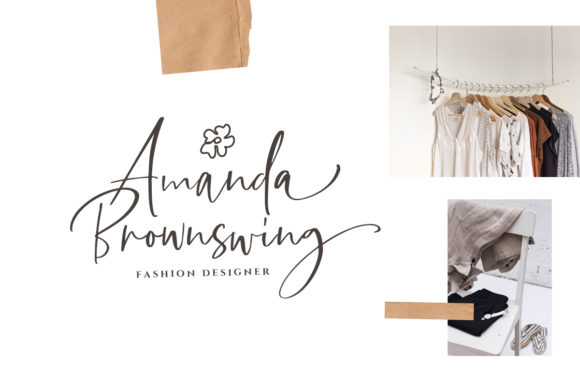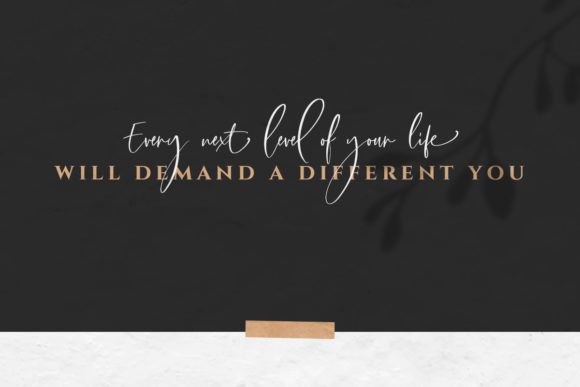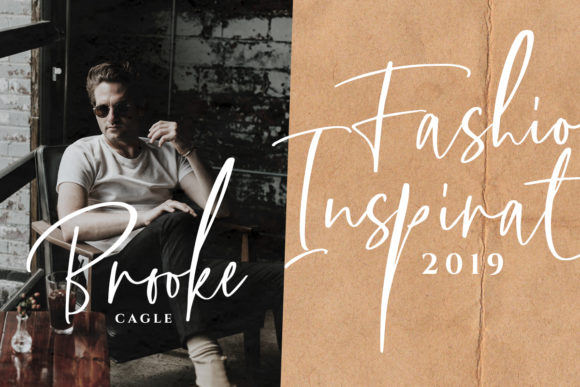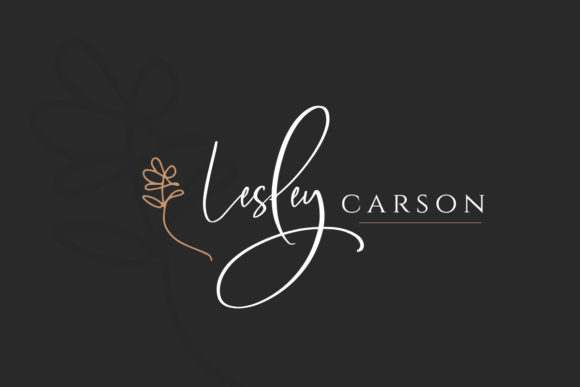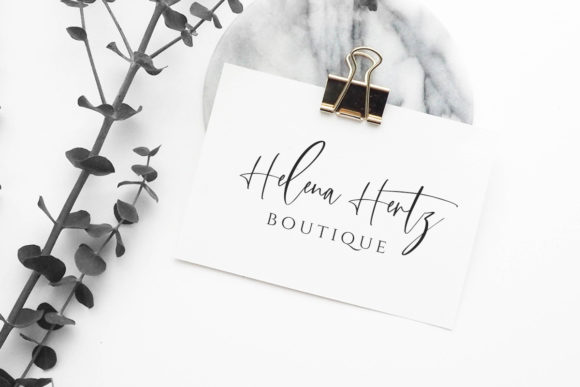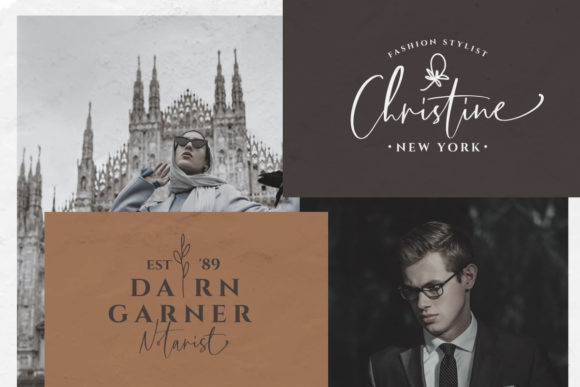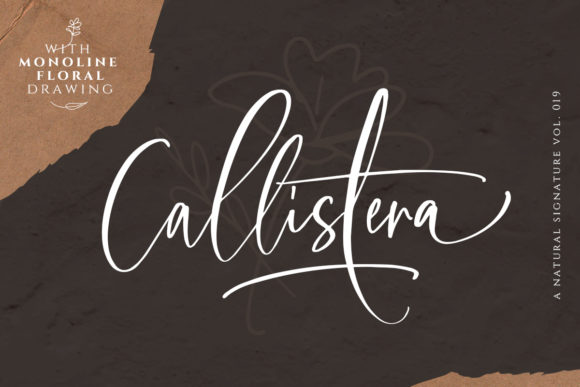
Introducing Callistera Font: Elevate Your Designs with Elegance and Sophistication
In the world of typography, a well-chosen font can make all the difference in transforming a design from ordinary to extraordinary. For designers and crafters seeking to add a touch of elegance and sophistication to their projects, the Callistera Font is an exceptional choice. This stylish and incredibly elegant script font is designed to make your designs stand out, whether you’re working on wedding invitations, thank you cards, quotes, greeting cards, logos, business cards, or any other project that requires a handwritten touch.
What Makes Callistera Font Special?
Callistera Font boasts a range of features that set it apart from other fonts. Its varying baseline, smooth lines, and gorgeous glyphs work together to create a visually appealing and harmonious look. The font also includes stunning alternates, providing you with flexibility and creativity in your designs. Whether you’re aiming for a classic, traditional feel or a more modern, trendy look, Callistera Font adapts beautifully to your needs.
One of the most convenient features of Callistera Font is its PUA (Private Use Area) encoding. This means that accessing all the glyphs and swashes is incredibly easy. With PUA encoding, you can effortlessly navigate through the font’s extensive range of characters and decorative elements, allowing you to add intricate details and personal touches to your designs without any hassle.
Ideal for a Variety of Design Projects
Callistera Font’s versatility makes it suitable for a wide array of design projects. Here are some of the areas where this font truly shines:
• Wedding Invitations: Add a touch of elegance and romance to your wedding invitations, save-the-date cards, and other wedding-related stationery.
• Thank You Cards: Express gratitude in style with beautifully designed thank you cards that exude warmth and sincerity.
• Quotes and Typography: Bring quotes to life with a font that beautifully renders each word, making your typography projects stand out.
• Greeting Cards: Whether it’s a birthday, anniversary, or holiday greeting, Callistera Font adds a personal and thoughtful touch to your cards.
• Logos and Branding: Create memorable logos and brand identities that convey elegance, sophistication, and a personal touch.
• Business Cards: Stand out in the business world with stylish business cards that reflect your professionalism and attention to detail.
Tips for Using Callistera Font
To make the most of Callistera Font, consider the following tips:
• Experiment with Swashes: Don’t be afraid to explore the font’s swashes and glyphs to add unique touches to your designs.
• Mix and Match: Combine Callistera Font with other fonts for interesting contrasts and dynamic typography.
• Pay Attention to Spacing: Adjust the spacing between letters and words to enhance readability and aesthetic appeal.
• Use it Sparingly: While Callistera Font is elegant, using it sparingly can make it more impactful. Consider using it for headings or key phrases.
Callistera Font is a stylish, elegant, and versatile script font that can elevate your designs to new heights. Its range of features, including PUA encoding for easy access to glyphs and swashes, makes it an invaluable tool for designers and crafters. Whether you’re creating wedding invitations, greeting cards, logos, or any other design project, Callistera Font provides the perfect blend of elegance and sophistication. By incorporating this beautiful font into your work, you’ll not only save time but also ensure your designs stand out with a personal and handwritten touch.
So, why settle for ordinary when you can create something extraordinary with Callistera Font? Dive into the world of elegant typography and let your designs speak volumes about your creativity and attention to detail.